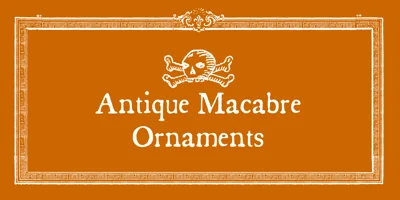
Antique Macabre Ornaments Font
Antique Macabre Ornaments Font is perfect for Victorian gothic designs, vintage horror publications, antique cemetery decorations, historical gothic architecture projects, dark academia aesthetics, and macabre art installations. Its haunting character makes it ideal for gothic museums, vintage horror collectors, Victorian antique dealers, dark history documentaries, and any application requiring ornamental typography that conveys historical darkness, gothic elegance, and the mysterious beauty of Victorian macabre culture.
Antique Macabre Ornaments Font is exciting because it preserves the darkly elegant decorative traditions of Victorian mourning culture through intricately designed ornamental elements that capture the sophisticated melancholy of 19th-century gothic aesthetics. Its ornate details and macabre motifs reflect the historical fascination with mortality and memento mori, making it perfect for projects seeking to honor the artistic beauty found in Victorian death culture. The font's antique character transforms modern designs into authentic period pieces celebrating gothic heritage.
Antique Macabre Ornaments Font family includes historically-accurate ornamental variations featuring intricate decorative elements, gothic symbols, and Victorian mourning motifs with authentic antique styling. The family often incorporates cemetery ornaments, memorial symbols, and period-appropriate decorative flourishes designed for historical gothic applications, providing designers with comprehensive tools for creating authentic, Victorian macabre typographic compositions.
When selecting gothic ornamental typography solutions, Antique Macabre Ornaments Font represents an exceptional choice for historical gothic projects. This distinctive typeface brings instant Victorian authenticity to any design, making it invaluable for gothic historians, antique enthusiasts, and cultural organizations celebrating Victorian mourning traditions. Whether you're developing gothic museum exhibitions, creating vintage horror publications, or designing historical cemetery documentation, Antique Macabre Ornaments Font provides the dark elegance and historical accuracy essential for honoring Victorian gothic culture in today's historically-conscious design landscape.